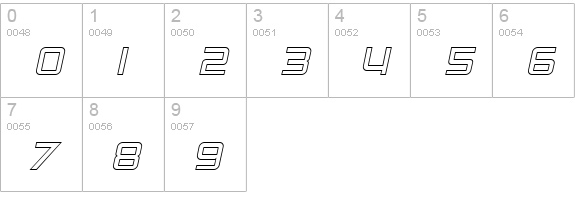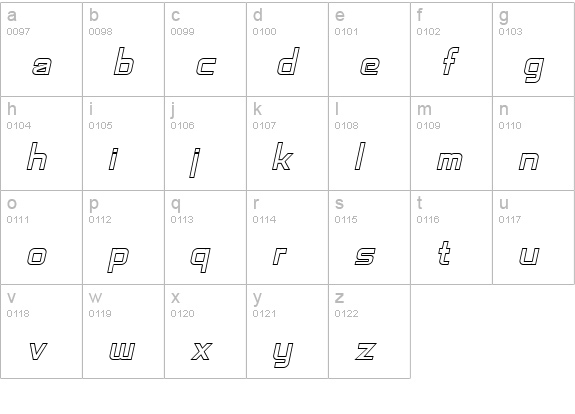
SF Chaerilidae Outline Oblique Font Details
SF Chaerilidae Outline Oblique is a distinctive, italic variant in the SF typeface family \xE2\x80\x94 well suited to design and typography projects.
SF Chaerilidae Outline Oblique font is a stunning and unique typeface that will make any design project stand out. With its intricate and elaborate outlines, this font exudes a sense of elegance and sophistication. The oblique style adds a touch of dynamism and modernity to the overall aesthetic. One of the best features of SF Chaerilidae Outline Oblique font is that it is freely available to download at FontsMarket.com. This means that designers and creatives can easily access and use this font without any cost. Whether you are working on a personal project or a professional assignment, this font can be the perfect addition to elevate your design. The free availability of SF Chaerilidae Outline Oblique font allows designers to experiment and explore different creative possibilities. Its versatility makes it suitable for various design applications such as logos, branding, invitations, posters, and more. The delicate outlines of this font create a sense of intricacy and attention to detail, making it a great choice for projects that require a refined and polished look. The clean and legible nature of SF Chaerilidae Outline Oblique font ensures that it remains readable even at smaller sizes, making it ideal for both print and digital mediums. The bold strokes and unique letterforms of this font will captivate the viewer's attention, adding a touch of personality and style to your design. In conclusion, SF Chaerilidae Outline Oblique font is a visually striking typeface that is freely available to download at FontsMarket.com. Its elegant outlines, oblique style, and versatility make it a great choice for any design project. Download this font today and unleash your creativity with its unique and captivating aesthetic.